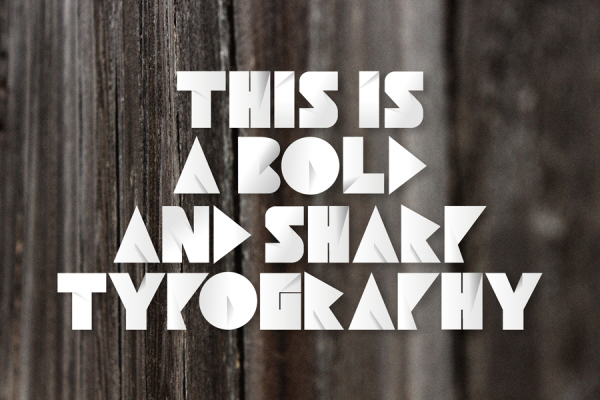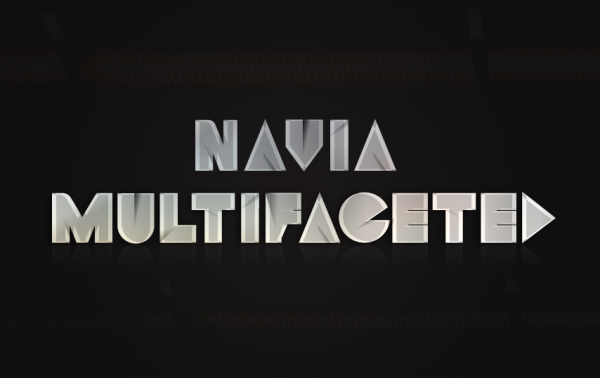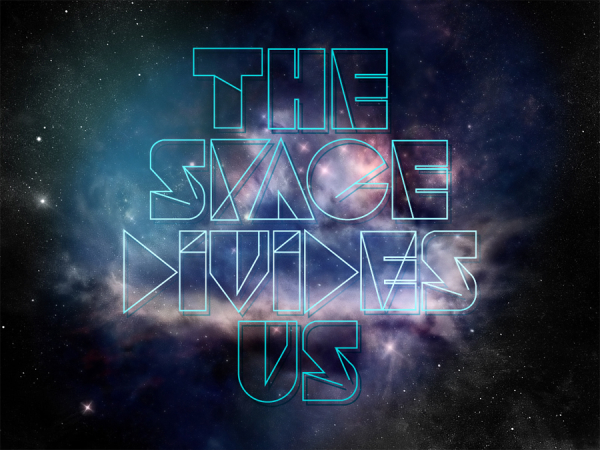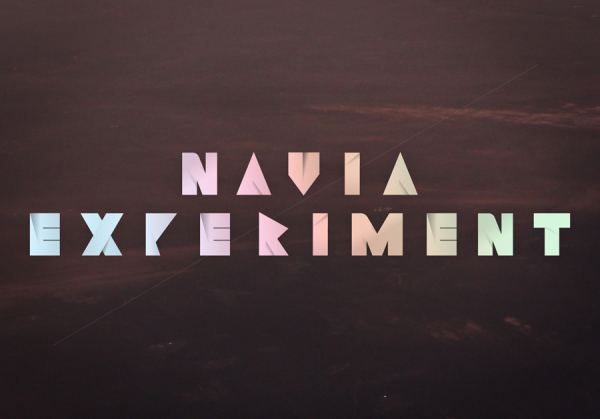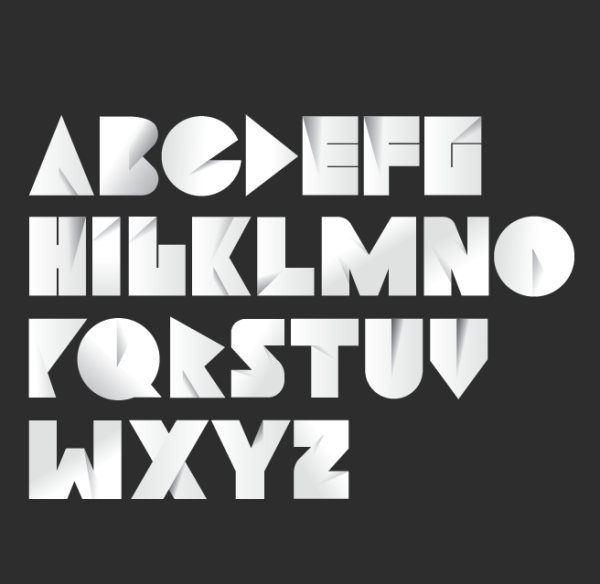
Navia Type
Navia Type is designed to communicate modernism with the sharp edges that brings contemporary style. This font is ideal for titles, portfolios and logos.
Designer: Rodrigo Alberto Cavazos
Publisher: Rodrigo Alberto Cavazos